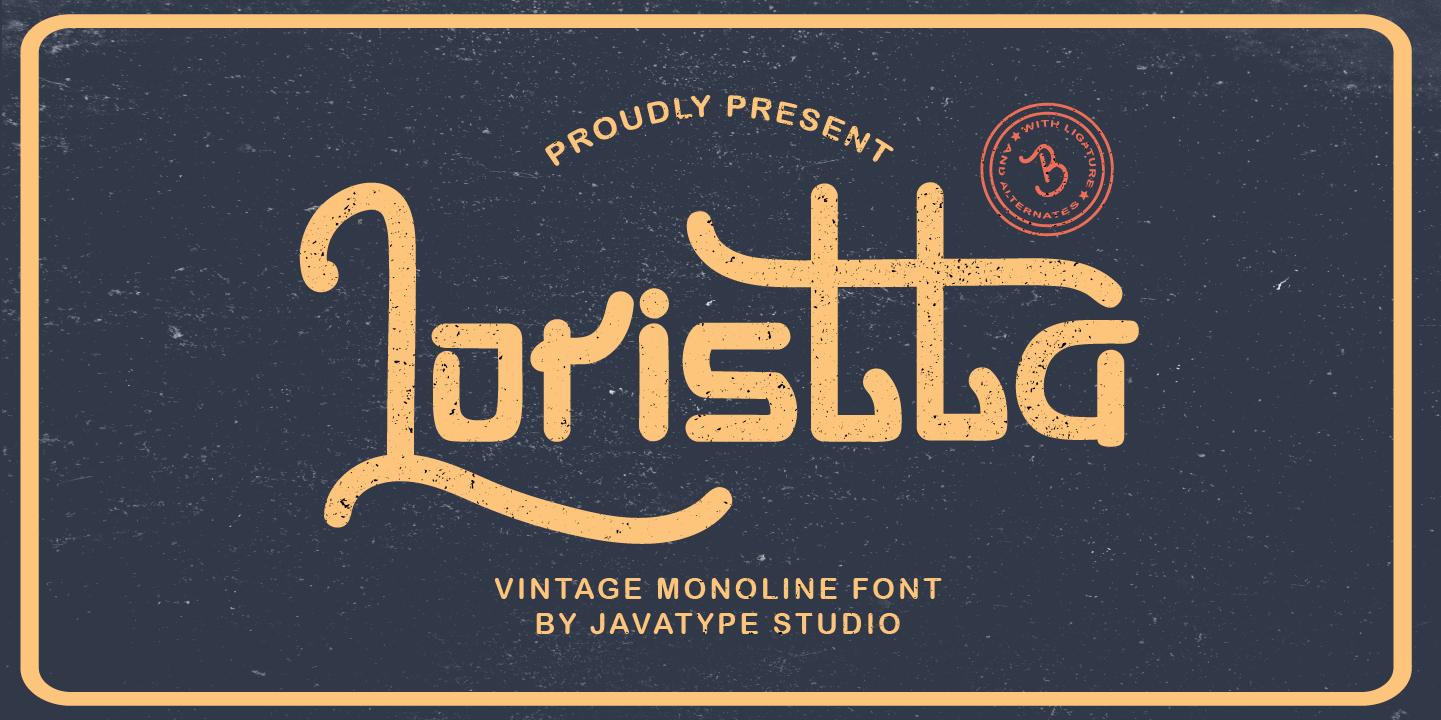
Loristta Font is exceptionally suited for elegant design applications including luxury wedding invitations, sophisticated branding materials, premium beauty product packaging, upscale restaurant menus, boutique fashion catalogs, exclusive event stationery, refined book covers, stylish magazine layouts, and high-end cosmetic advertising. Its graceful character makes it perfect for projects requiring feminine elegance and contemporary sophistication across both digital and print platforms.
What makes Loristta Font exciting is its perfect blend of delicate femininity with modern versatility that creates an instantly recognizable aesthetic appeal. This enchanting typeface features flowing curves and refined letterforms that exude elegance while maintaining excellent readability. The font's romantic personality makes it ideal for brands targeting sophisticated audiences who appreciate beauty, quality, and attention to detail in their visual communications.
Loristta Font comes with an extensive family collection including Thin, Light, Regular, Medium, Bold, and Black weights, complemented by matching Italic versions, Script variants, and Decorative styles. Each family member preserves the elegant core design while offering different levels of visual impact and stylistic expression to accommodate various creative needs and complex typographic arrangements.
Creative professionals seeking refined typography solutions will find Loristta Font Free Download to be an outstanding investment in their design portfolio. This typeface demonstrates remarkable adaptability in both headline applications and body text settings, ensuring consistent aesthetic excellence across all project requirements. Whether developing brand identities for luxury services, creating editorial layouts for lifestyle magazines, or designing sophisticated web interfaces, this font consistently delivers exceptional visual results.
The Loristta Font showcases exquisite attention to detail in every character construction, featuring graceful proportions and elegant spacing that enhance overall design sophistication. Its comprehensive character set includes multilingual support, decorative elements, and special ligatures that provide designers with extensive creative possibilities. The font's optimized kerning ensures smooth reading experiences while maintaining its distinctive elegant appearance.
Design agencies particularly appreciate Loristta Font for its ability to communicate luxury and refinement without appearing overly ornate or difficult to read. The typeface works exceptionally well for beauty brands, fashion retailers, wedding planners, jewelry designers, spa services, and premium lifestyle products. Its timeless elegance ensures brand longevity while its contemporary refinements keep it relevant for modern marketing applications.
The sophisticated structure of Loristta Font makes it particularly valuable for creating memorable brand experiences that resonate with discerning customers. Its distinctive character creates strong emotional connections while maintaining professional credibility across various platforms, from elegant print materials to responsive web designs, ensuring consistent brand communication that reflects quality and sophistication in every customer interaction.